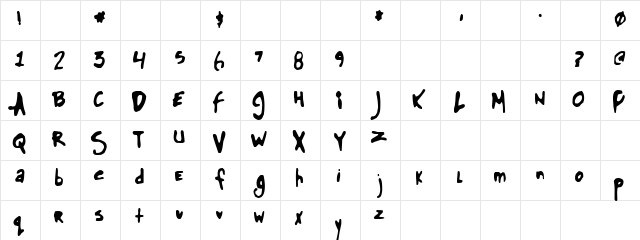
Pub World Regular
Design Context for Pub World Typeface
Pub World is a composed and adaptable typeface that performs quietly and consistently across a wide range of design contexts.